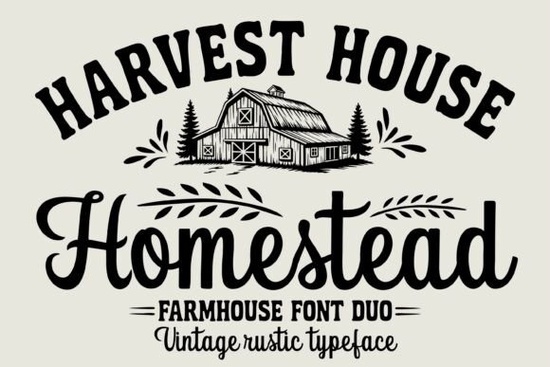
If you're working on rustic signs, farmhouse-style wall art, or cozy branding for a small business, the Homestead Font bundle offers a grounded, handcrafted look that feels both timeless and approachable. Designed with real-world crafting in mind especially for Cricut and Silhouette users it pairs a sturdy vintage serif with a gentle, flowing script that complements everything from pantry labels to t-shirt quotes.
What makes Homestead Font stand out for crafters?
Unlike overly ornate or stiff typefaces, Homestead balances authenticity with usability. The serif font carries the weight of old barn signage think chiseled wood and weathered paint but remains highly legible even at smaller sizes. Meanwhile, the script mimics natural handwriting with subtle texture and soft curves, perfect for personalizing mugs, gift tags, or wedding invitations with a country touch.
Both fonts include uppercase and lowercase letters, numerals, punctuation, and stylistic alternates, giving you room to experiment without needing extra design tools. And because they’re optimized for both print and digital use, you can confidently apply them to Etsy product mockups, printable PDFs, or SVG cut files.
How can I use these fonts beyond basic text?
Many designers combine Homestead’s two styles to create visual hierarchy. For example:
- Use the serif for headlines like “Farm Fresh Eggs” on a market stall sign.
- Pair it with the script for a subheading such as “gathered daily with care.”
- Layer both in logo designs for bakeries, florists, or handmade soap brands leaning into cottagecore or heritage aesthetics.
Because the fonts were inspired by pastoral life vintage markets, handwritten ledgers, and homestead decor they naturally suit themes around simplicity, sustainability, and slow living. That makes them especially useful for print-on-demand sellers creating quote mugs, tea towels, or seasonal greeting cards.
Which other script fonts work well with rustic themes?
If you enjoy the warmth of Homestead’s script but want alternatives for variety, consider exploring similar hand-drawn styles. Fonts like Better Together offer a slightly bolder, connected script ideal for romantic or family-themed projects. For something more delicate, Like Magic brings airy elegance that pairs beautifully with floral illustrations.
Other options worth browsing include the cheerful bounce of Strawberry Chesscake, great for playful farmhouse kitchens, or the refined loops of Sophia, which leans into classic calligraphy while staying readable. And if you’re building a brand identity that mixes modern minimalism with rustic charm, you might also appreciate how Homestead’s own script holds its own alongside clean sans-serifs.
- Combine thoughtfully: use serif for structure, script for personality.
Whether you’re making a “Welcome Home” sign for your porch or designing packaging for a local honey brand, Homestead Font gives you the authentic, hand-touched feel that customers associate with care and craftsmanship.